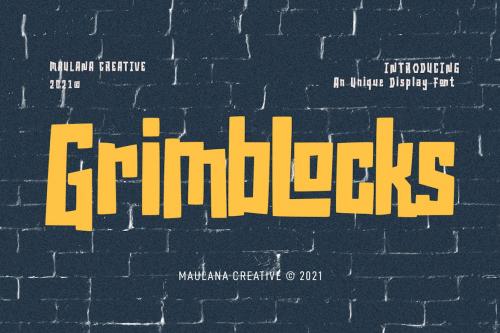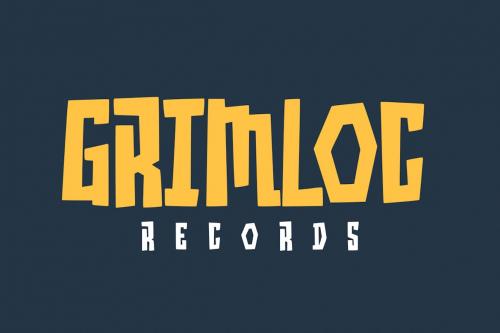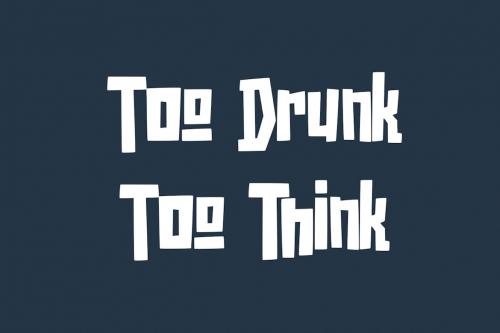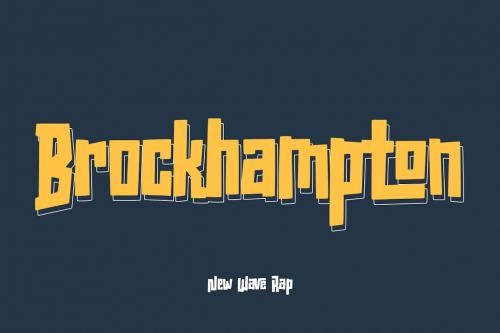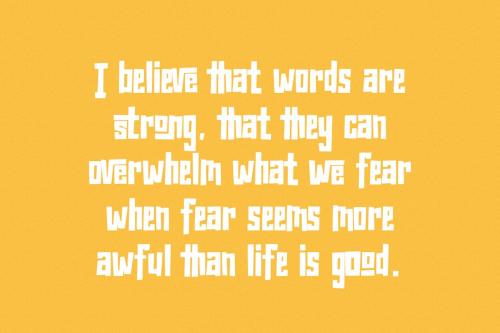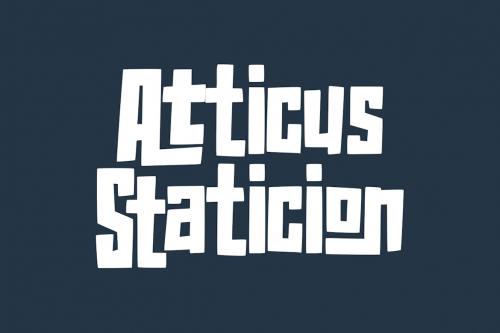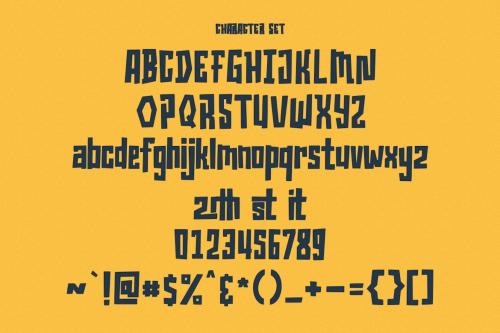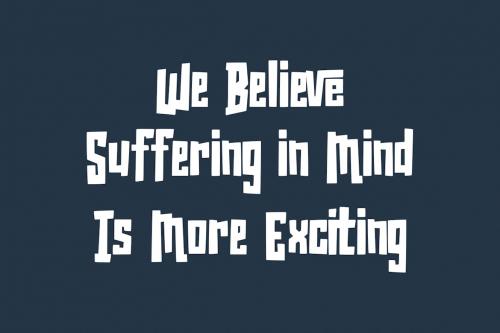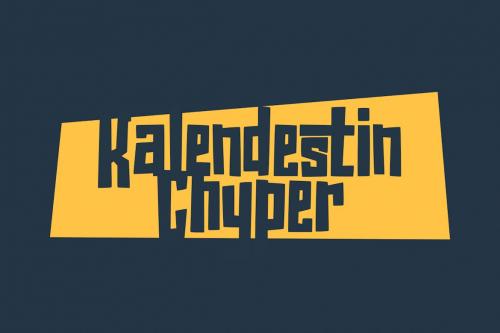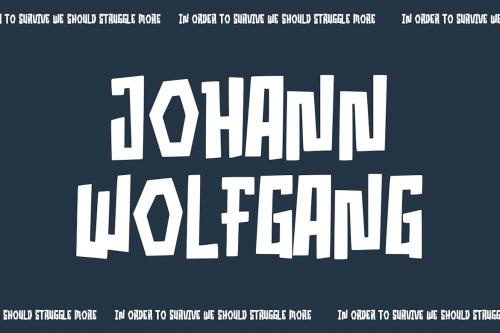
格纹方块显示字体
Grimblocks Display Font
Grimblocks is a Decorative Square Blocks font. With Sharp Bold stroke, Upright and fun character with a bit of ligatures. To give you an extra creative work. Grimblocks font support multilingual more than 100+ language. This font is good for logo design, Social media, Movie Titles, Books Titles, a short text even a long text letter and good for your secondary text font with sans or serif. Make a stunning work with Grimblocks font.